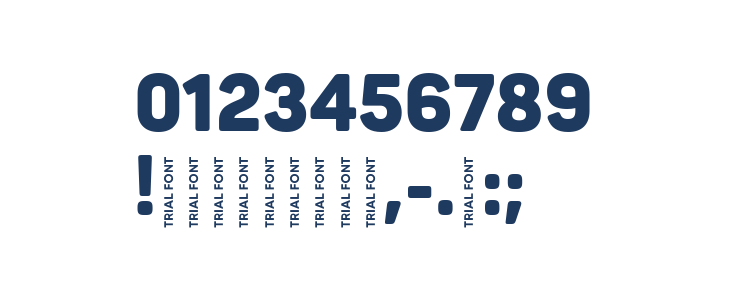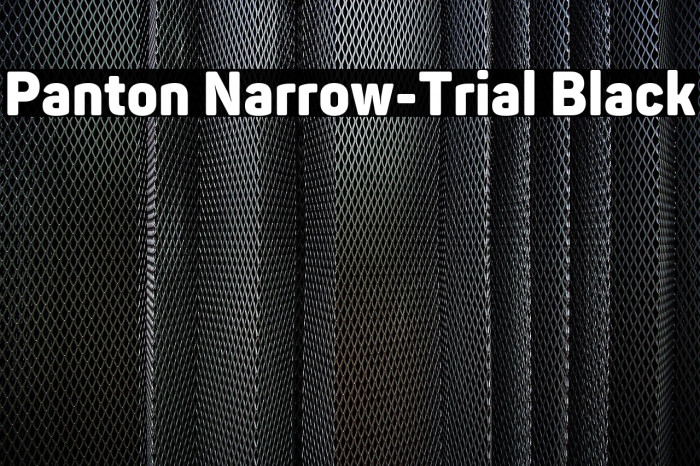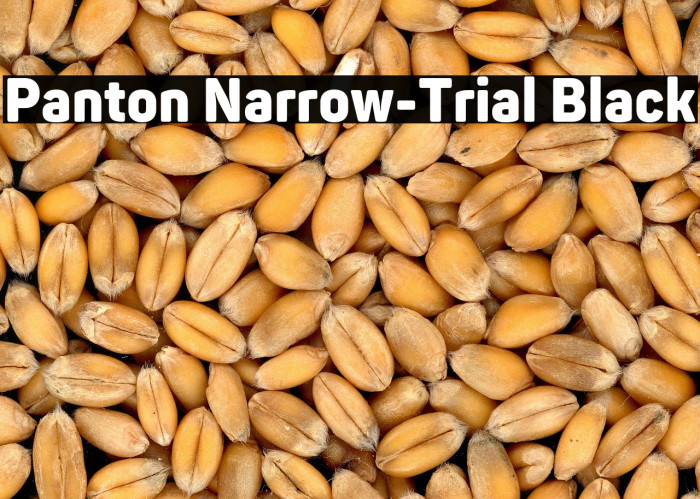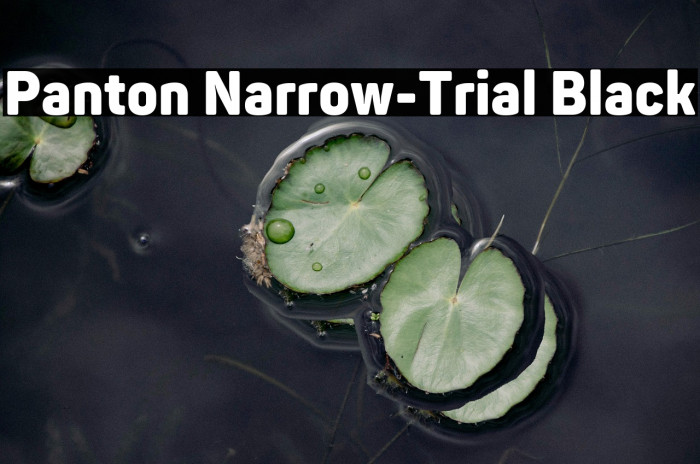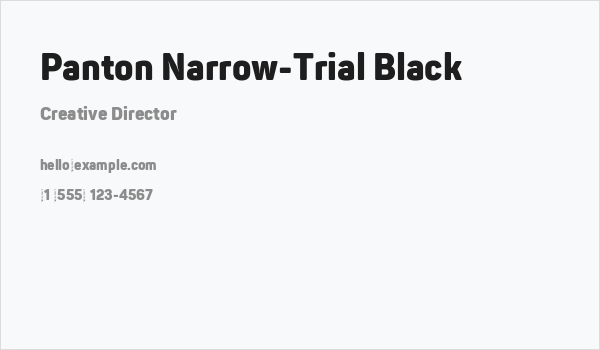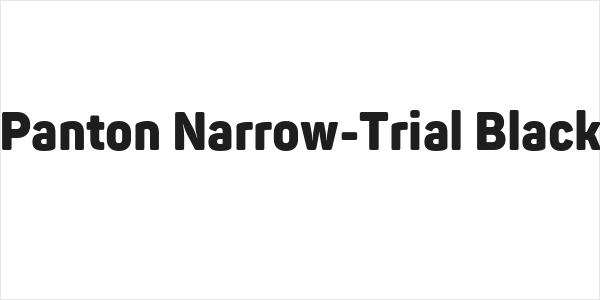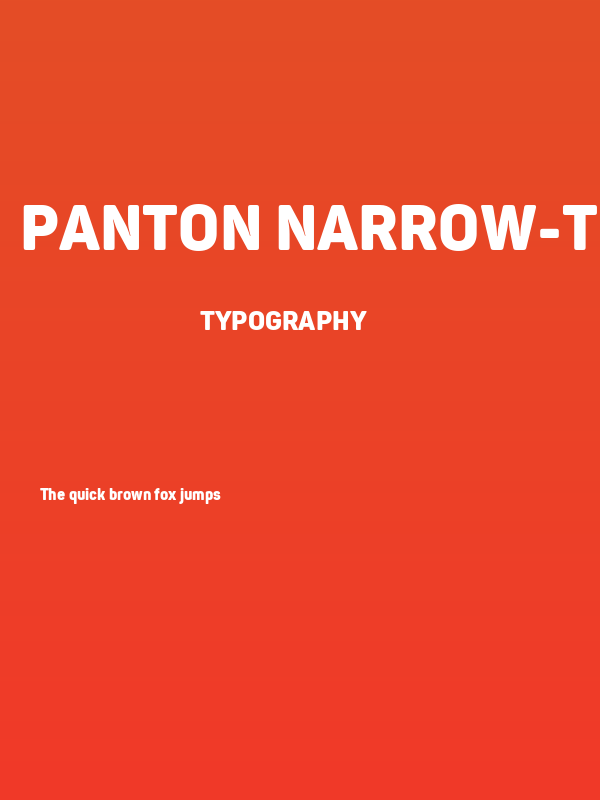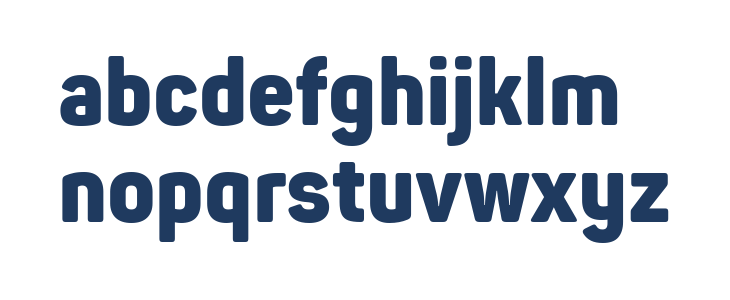
Panton Narrow-Trial Black Font
Panton Narrow-Trial Black Description
This font features a bold and modern design with a narrow width, making it ideal for impactful headlines and titles. The characters are well-defined with a consistent stroke weight, providing a clean and uniform appearance. The uppercase and lowercase letters maintain a strong presence, while the numerals are clear and easy to read. The special characters are distinct and complement the overall style, ensuring versatility in various design applications. Its geometric shapes and smooth curves contribute to a contemporary aesthetic, suitable for both digital and print media.
| Proposed Projects | Ideal for branding, advertising, posters, and web design projects where a strong visual impact is needed. |